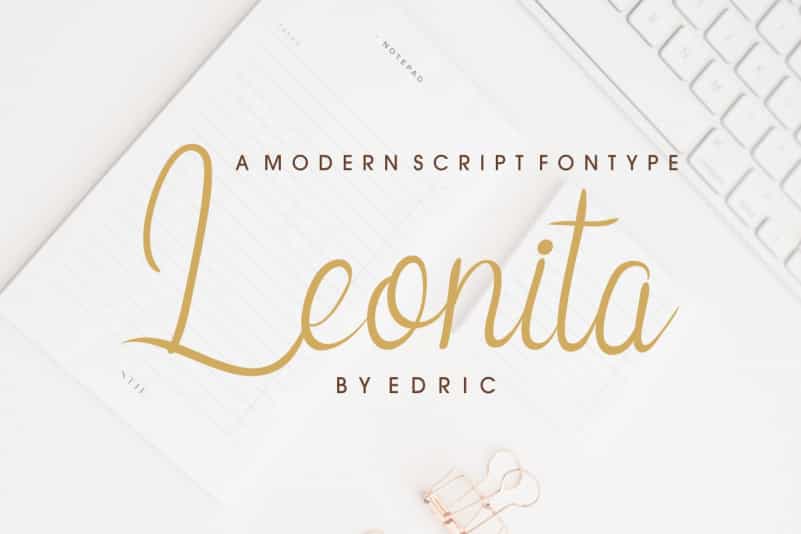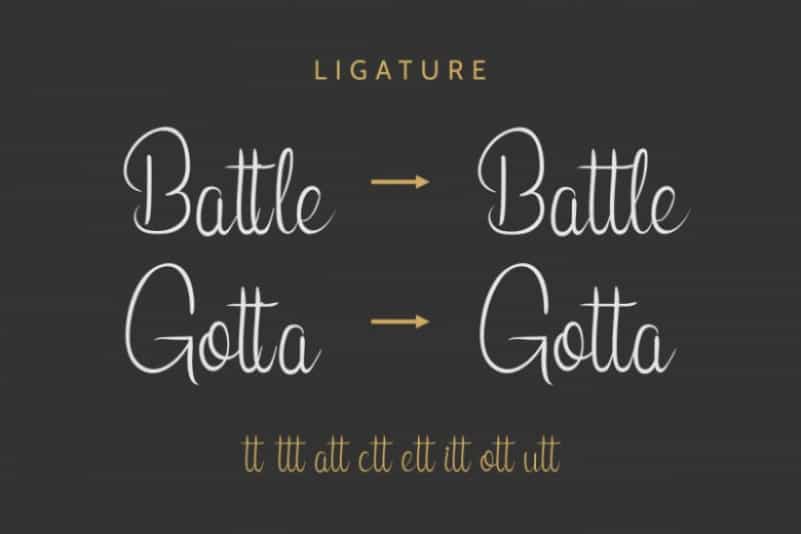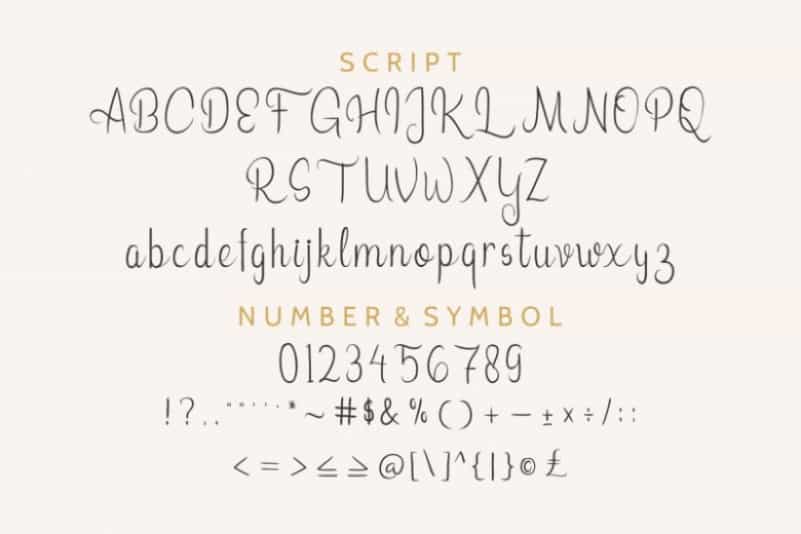
Leonita is a new calligraphy script font that contains charming characters. It is a natural-like, refined and stylish type. It comes with two style choices : Regular and italics font. It also can be used with several accents.